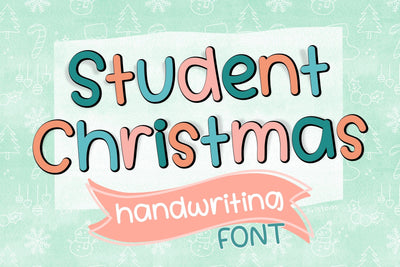
Student Christmas - Casual Handwritten Font
Student Christmas is a clean and cute handwritten font. You can use this font in various projects - blog posts, logos, branding, digital planner, digital notes, invitations, greeting cards, planners, digital journal, photo albums, study notes, school notes, college notes, decorations and much more. Its authentic look and feel will add a personal and realistic feel to your designs.
The font includes uppercase, lowercase, numbers, punctuations